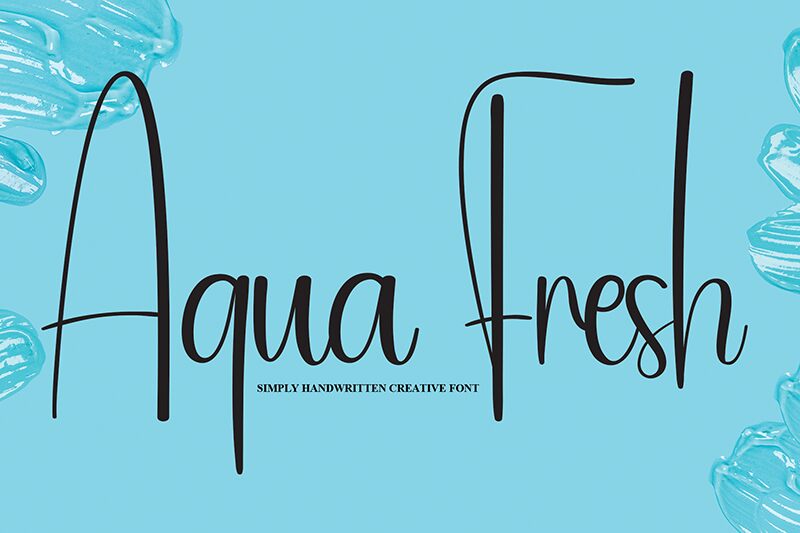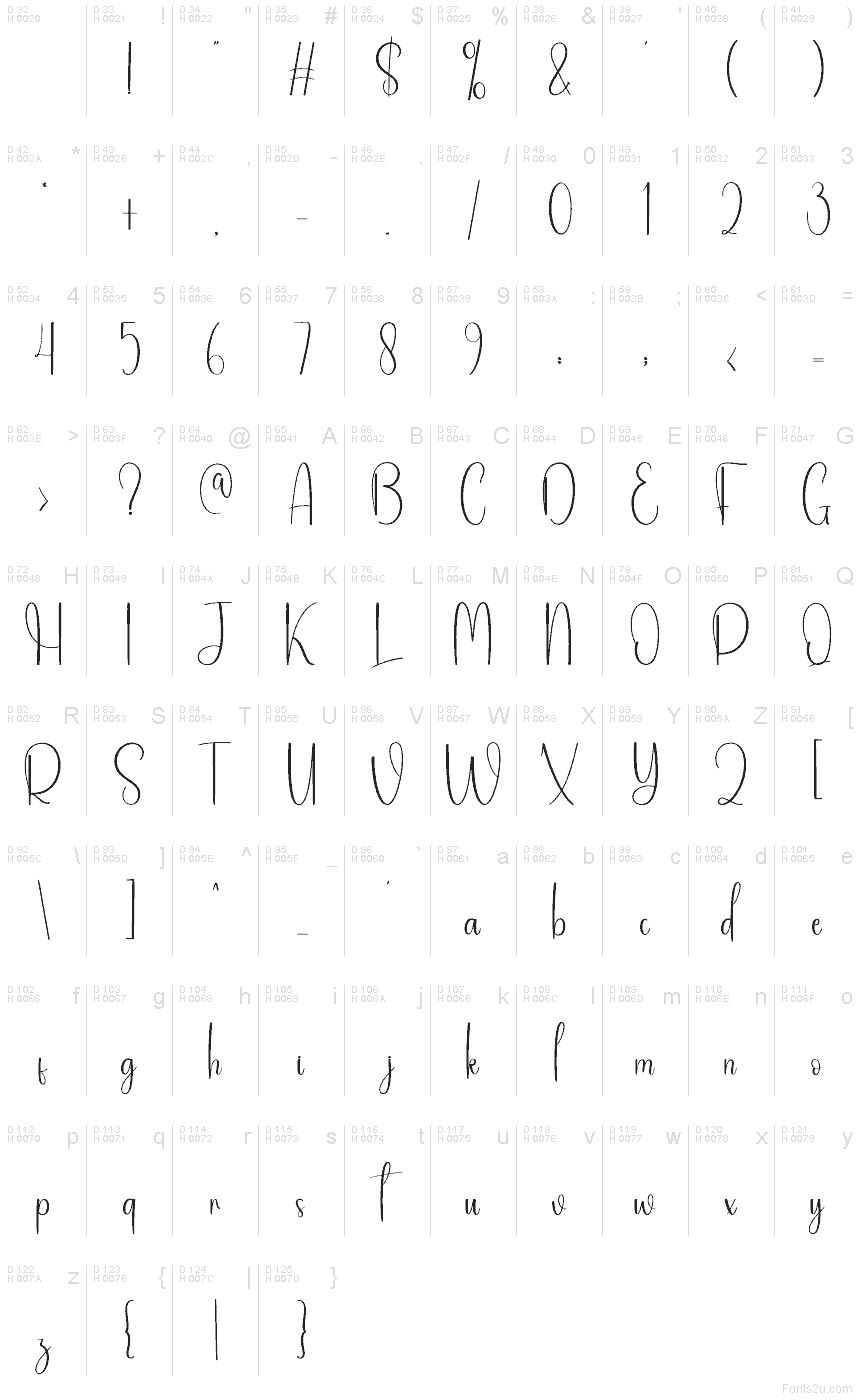
Aqua Fresh
Aqua Fresh font by Andi Moz seamlessly blends artistic flair with contemporary appeal. This elegant, modern script showcases fluid form and graceful curves in a condensed handwritten style. With its stylish and sophisticated appearance, it brings a fresh, modern touch to any project.